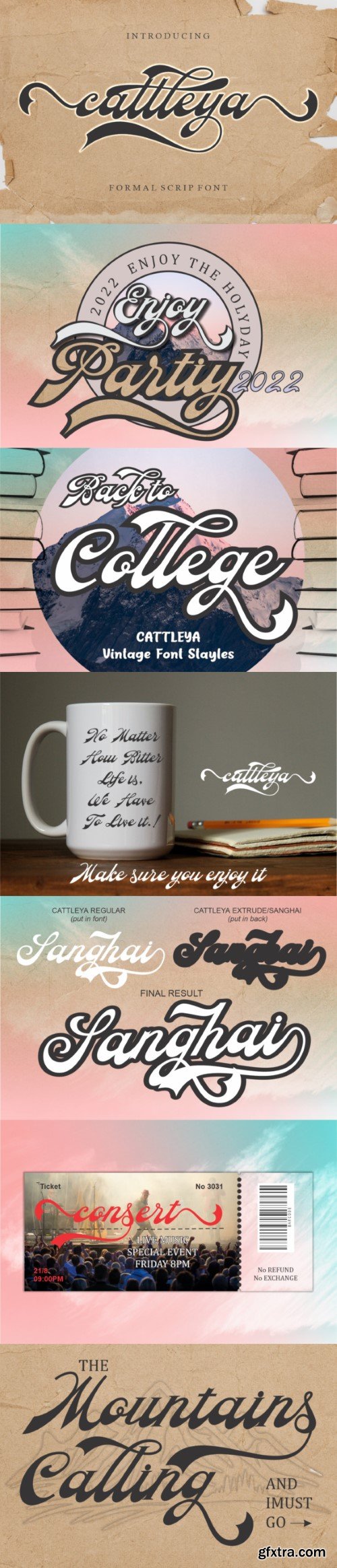
卡特利娅字体
Cattleya is a stylish and retro handwritten font. It is perfect for branding, logos, wedding invites, magazines, mugs, business cards, quotes, posters, and more.